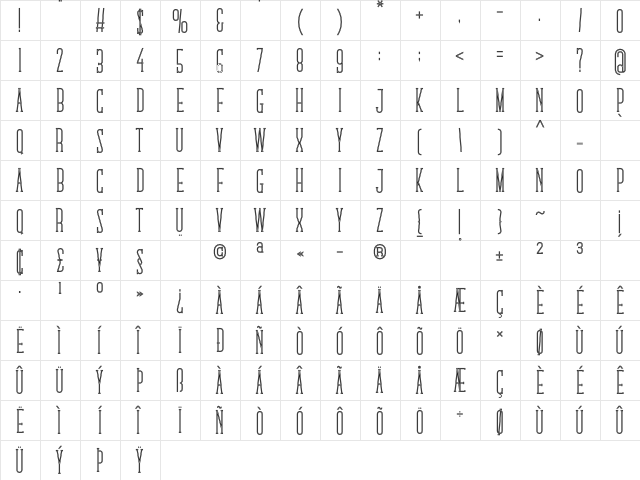
Chokie Crossline Style Regular
| Designer | ARI JUANDA |
Design Context for Chokie Crossline Style Typeface
Chokie Crossline Style offers clean, dependable letterforms without strong stylistic allegiance, making it a practical choice for designers who need flexibility.